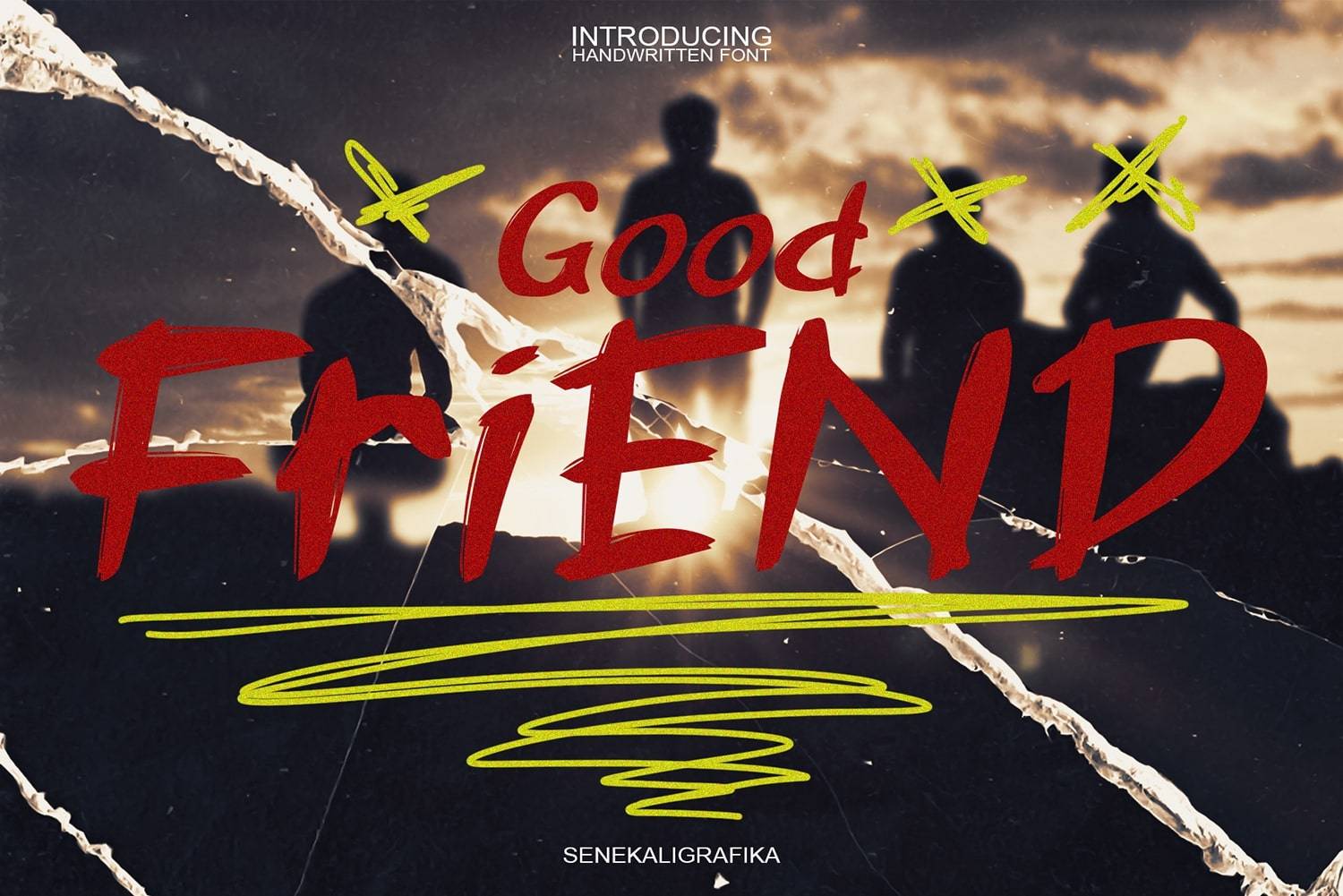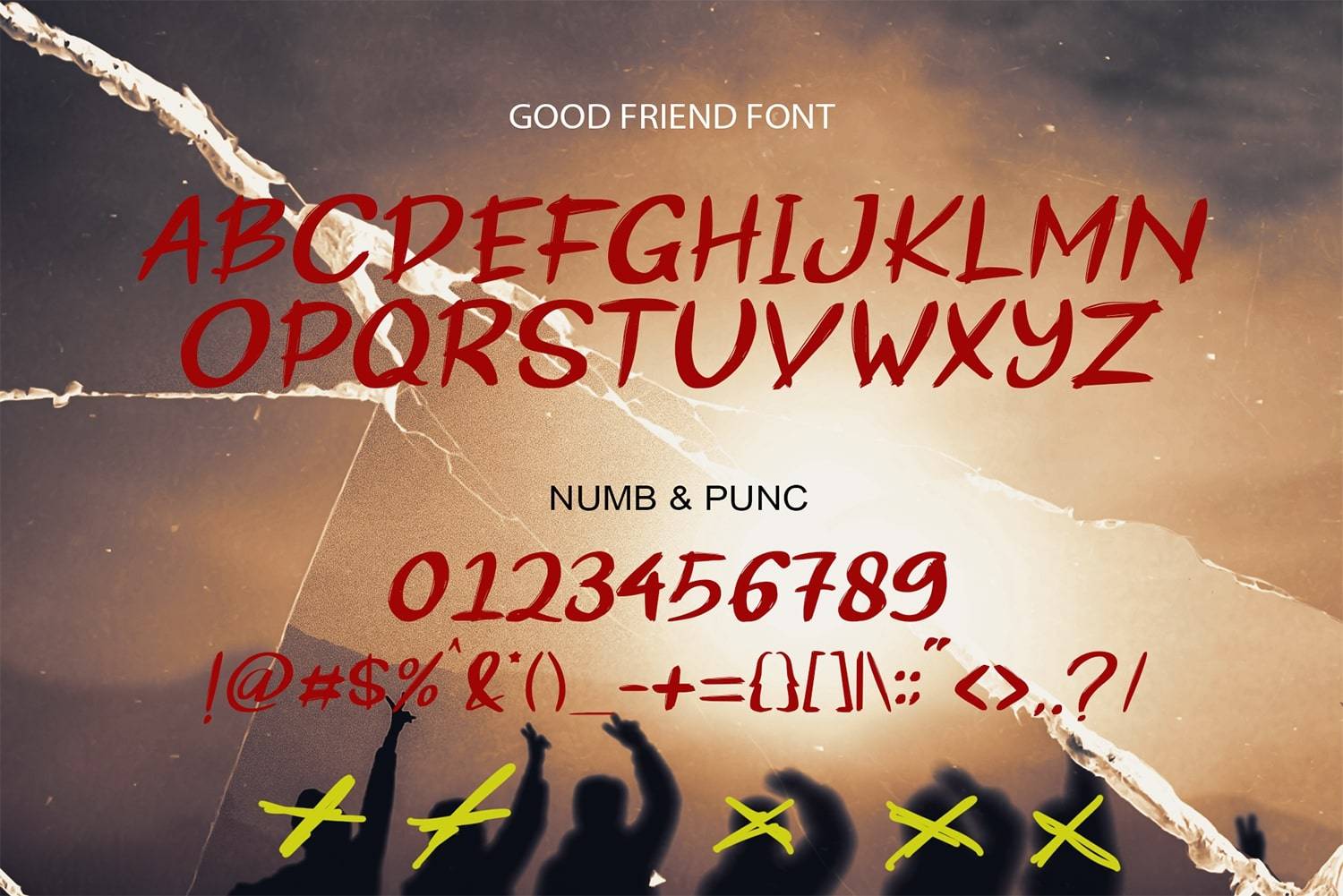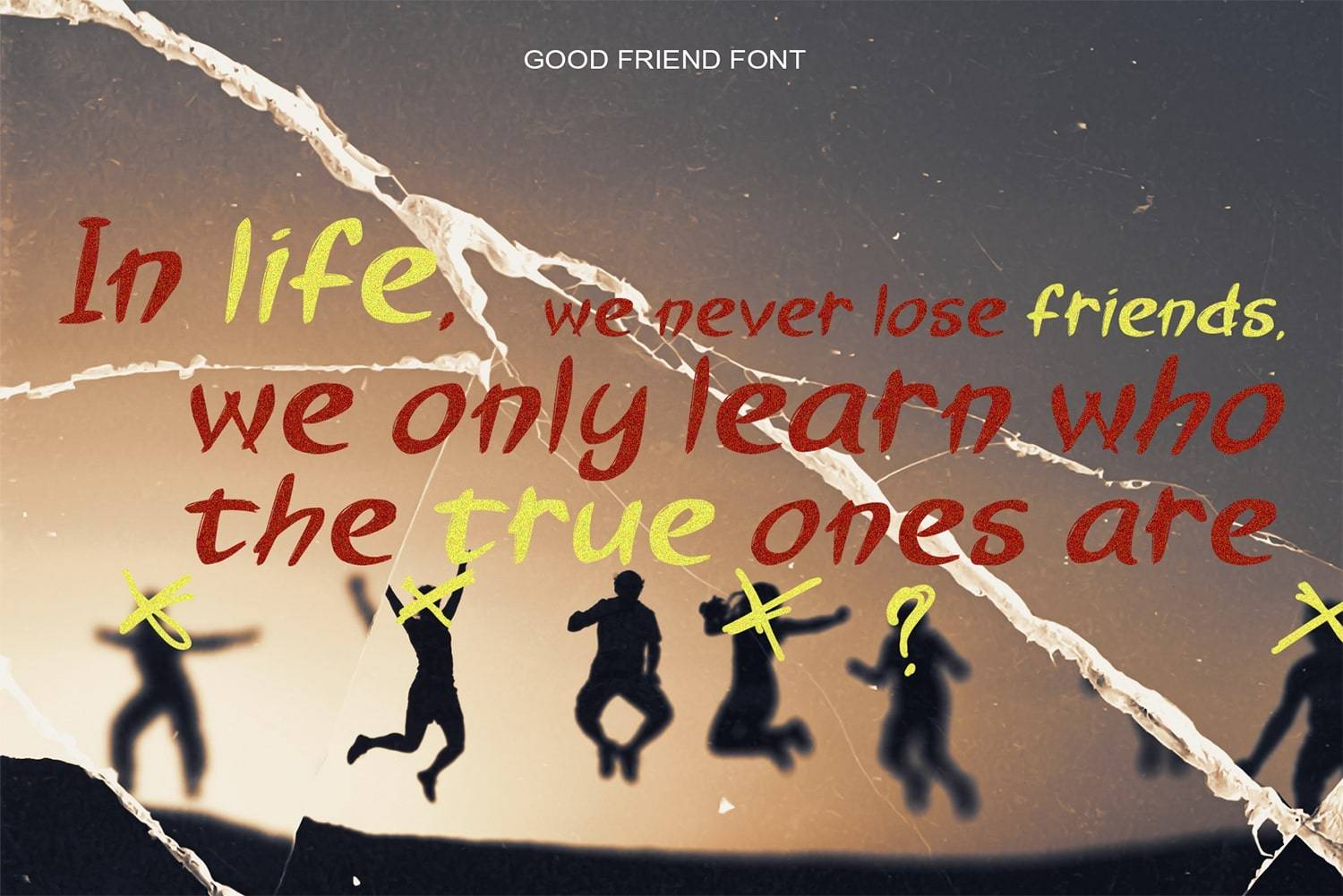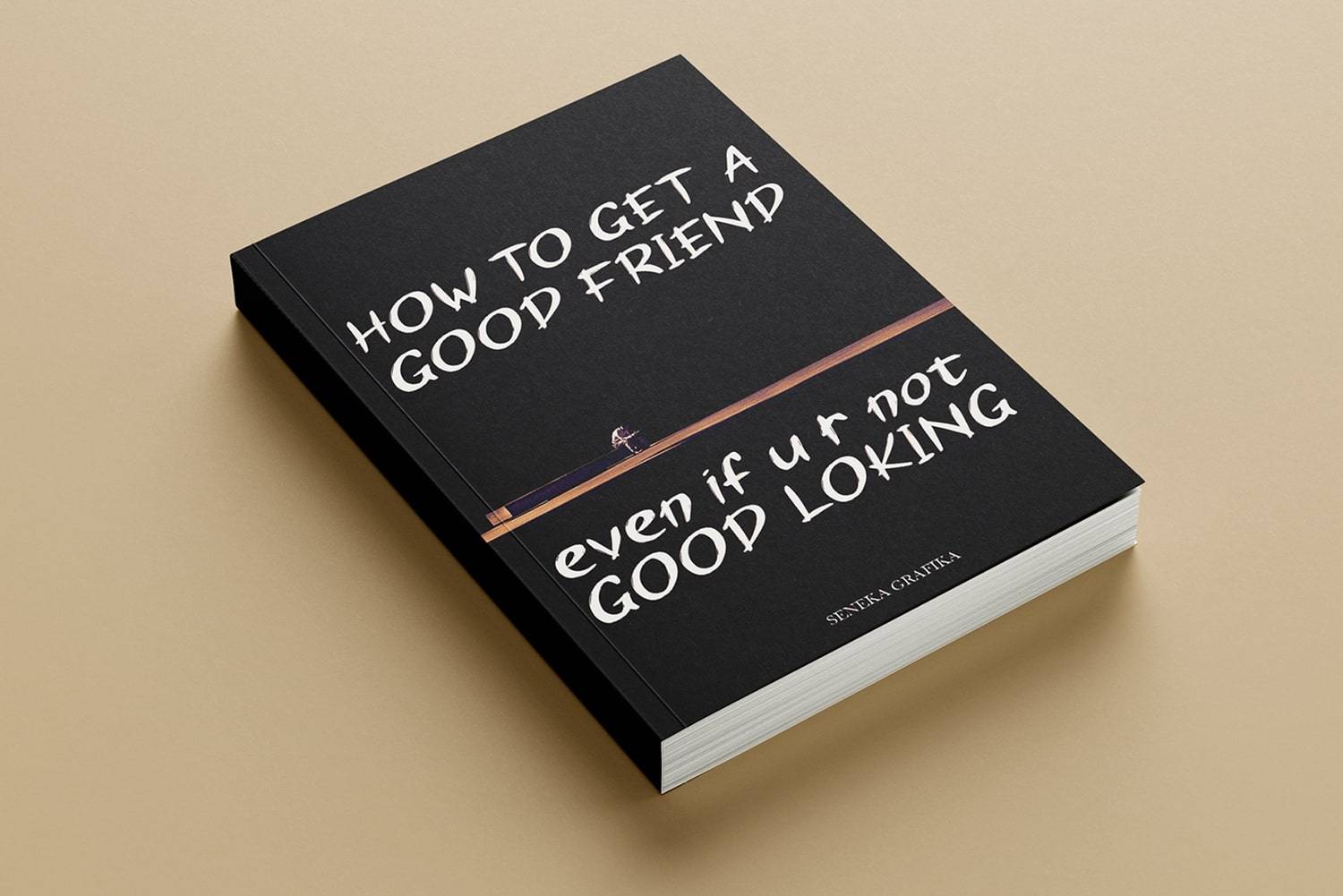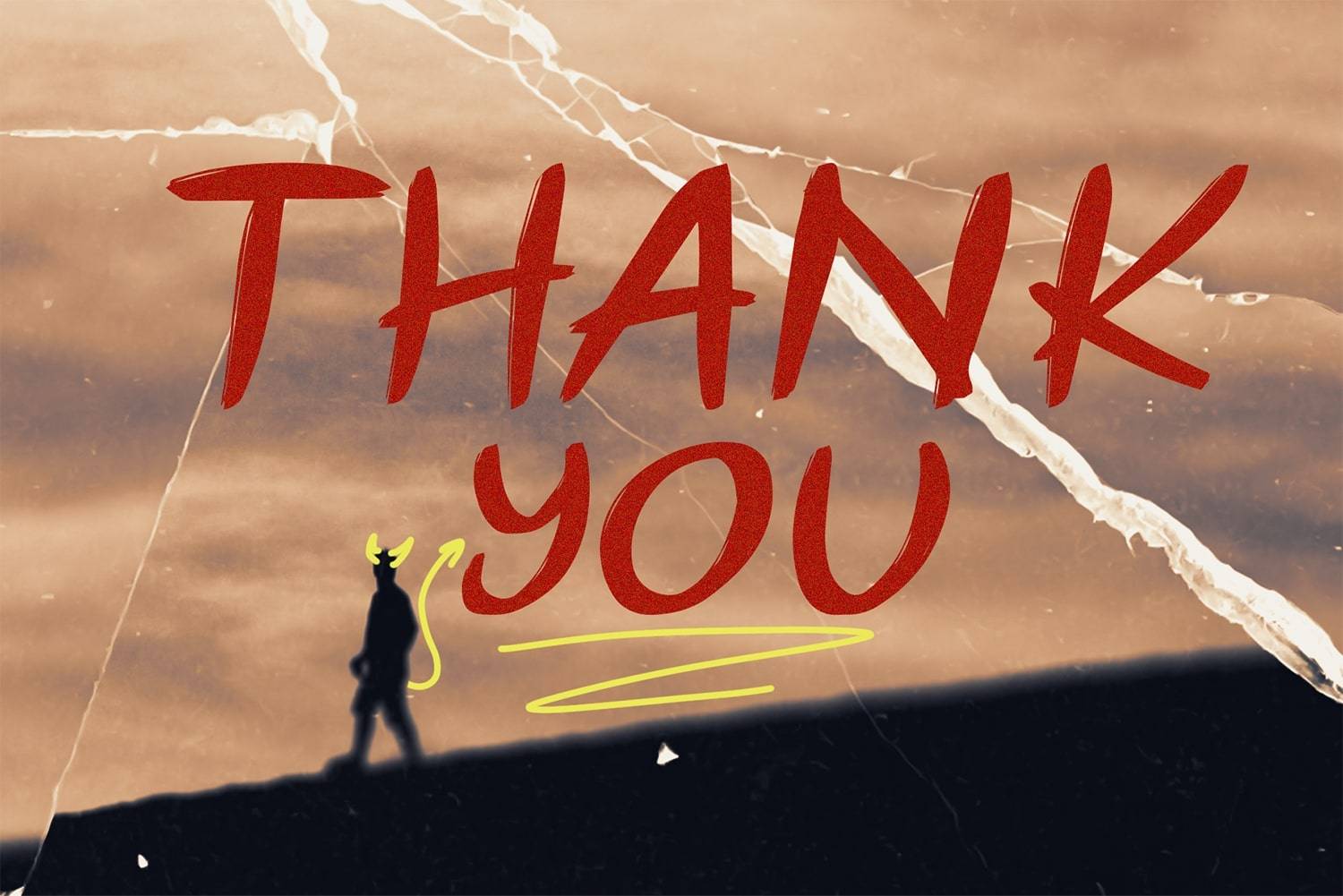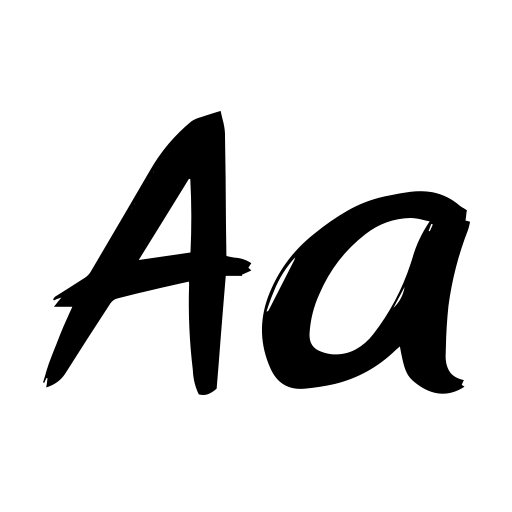
Good Friend is a lively, brush-script font that conveys warmth and friendliness through its dynamic, hand-painted strokes and natural, informal style. Its medium weight and slightly condensed letterforms offer good readability while maintaining an expressive, personal touch, making it perfect for branding, invitations, and creative projects that seek a casual, approachable vibe. This font shines in designs where personality and a handcrafted feel are key, adding an inviting and energetic mood.
Good Friend Font
About Good Friend Font
| Font family | Good Friend Font |
| Designer | Fikri Irvansyah Putera Komara |